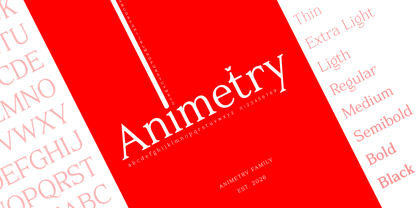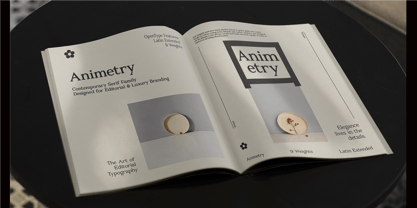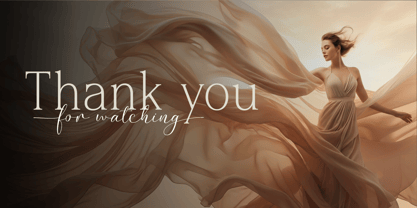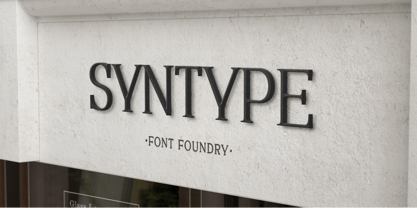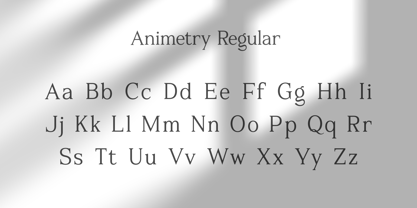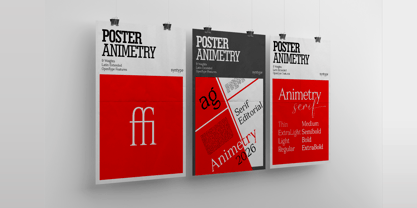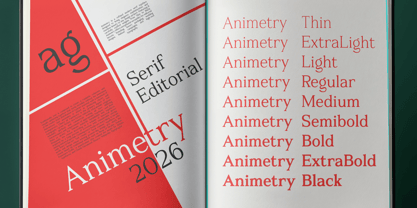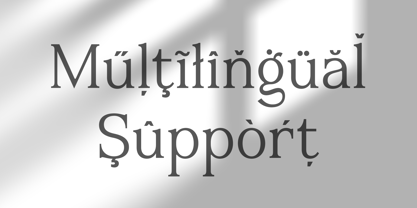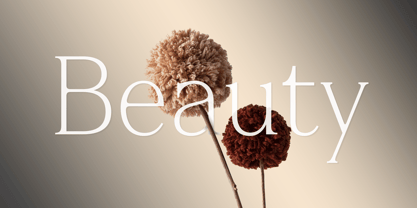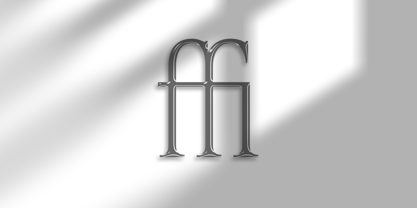
Animetry
by SynType
The Animetry Font Family was designed by M Khafid and published by SynType. Animetry contains 18 styles and family package options.
Animetry is a modern serif typeface with elegant proportions and timeless character. Featuring 9 versatile weights, multilingual support, and beautiful ligatures, it is perfect for branding, editorial design, fashion, beauty, wedding invitations, packaging, and luxury projects.
• 9 Weights
• 300+ Glyphs
• Multilingual Support
• Ligatures
• Punctuation & Numerals
• OpenType Features
Designers: M Khafid
Foundry: SynType